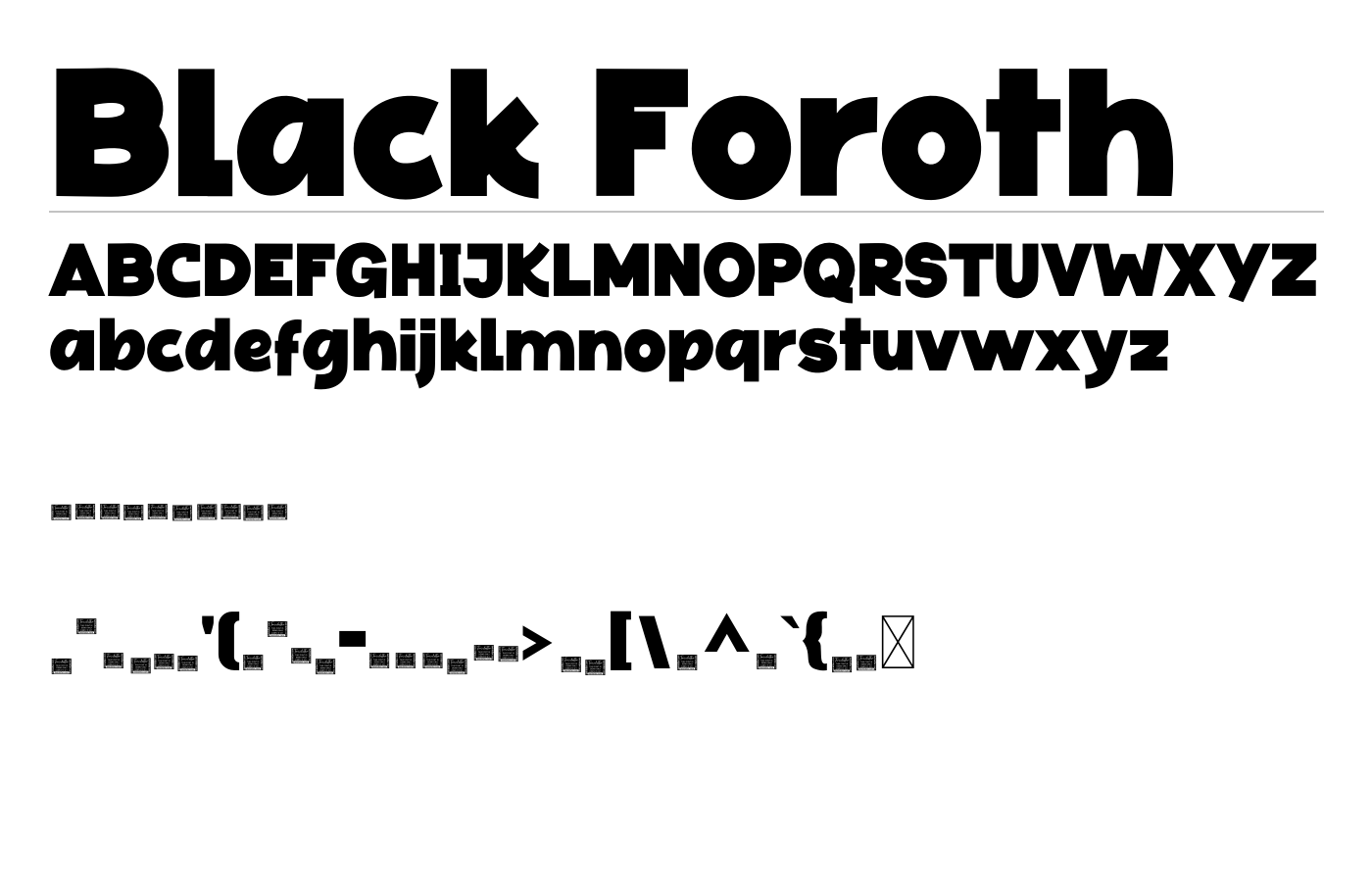
Black Foroth is a bold, geometric sans serif font with a playful and modern feel. Its thick, chunky letterforms and rounded edges make it highly legible and perfect for headlines, logos, and branding that seeks a strong, approachable presence. This font works well in creative and casual contexts where a fun yet confident style is desired.
Black Foroth Font
About Black Foroth Font